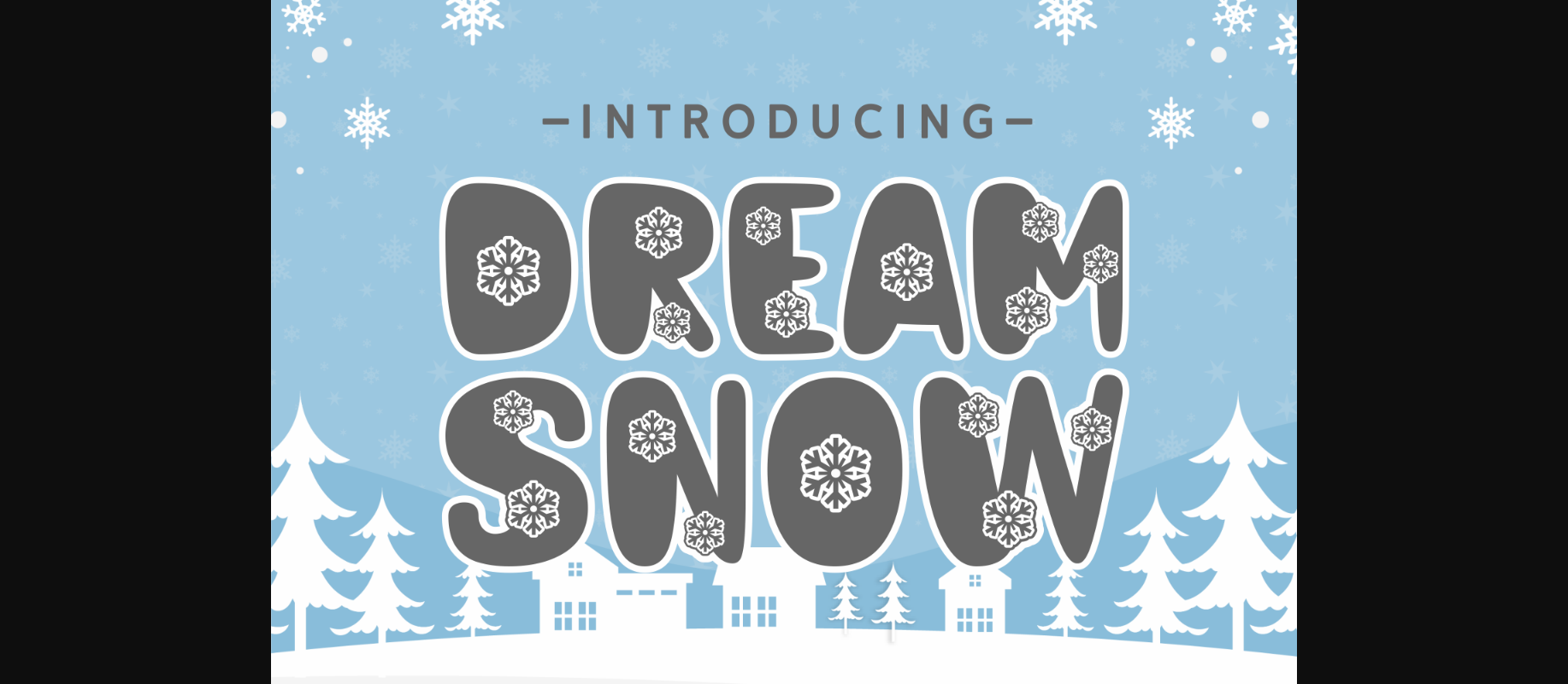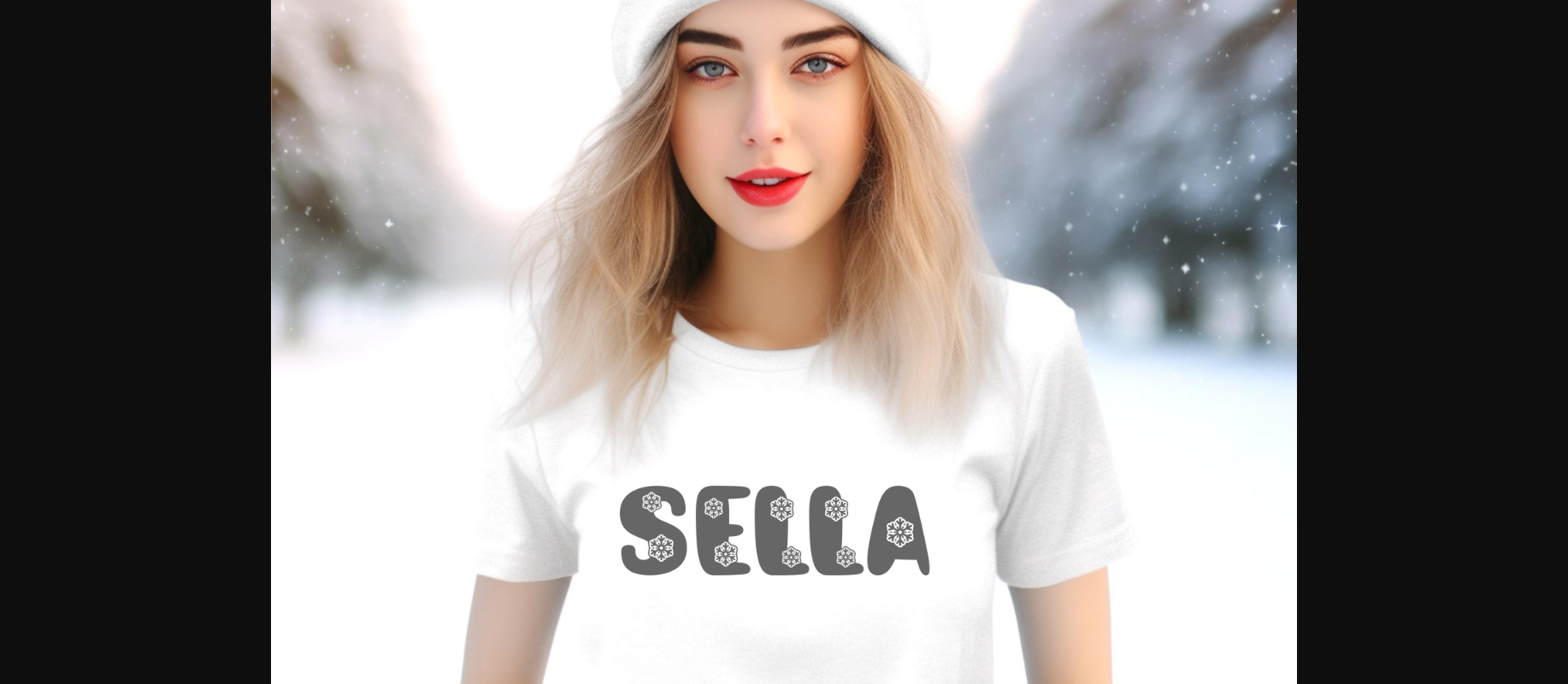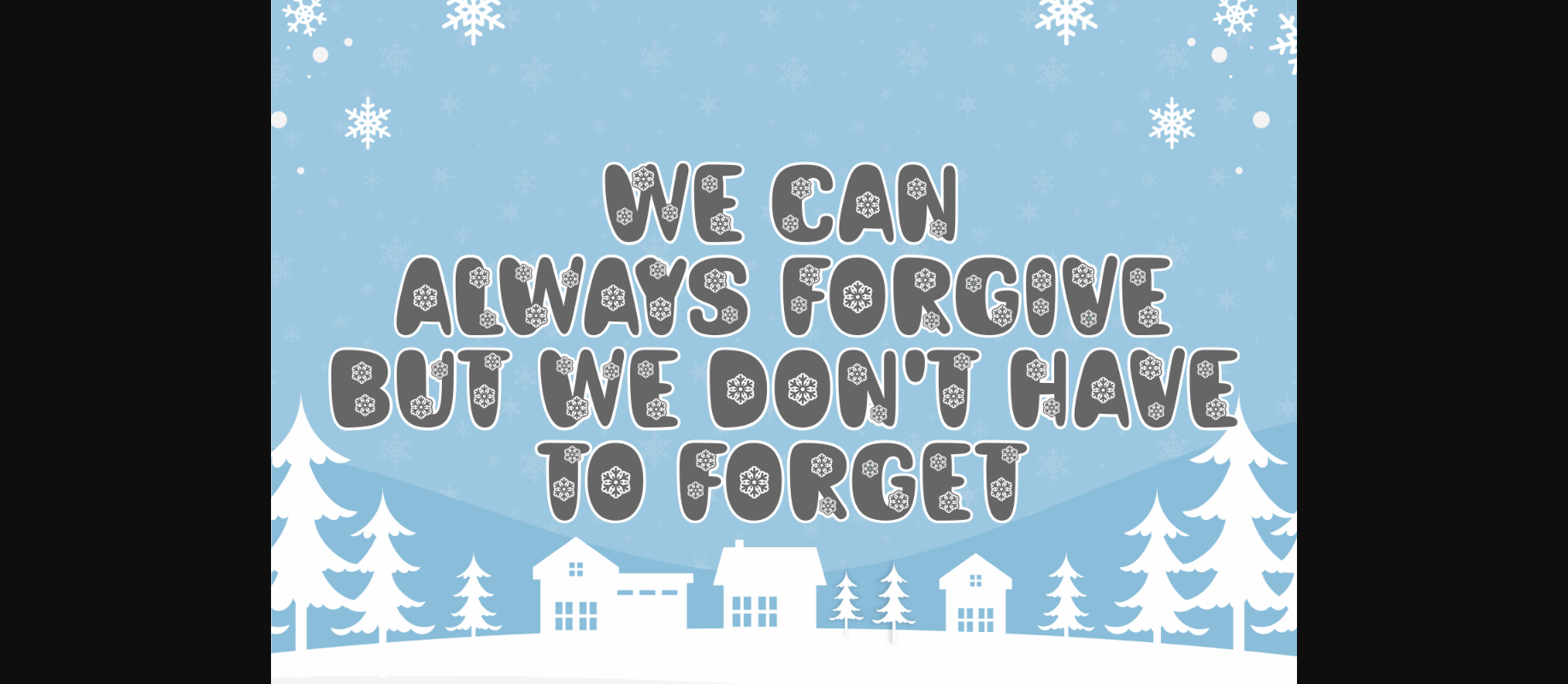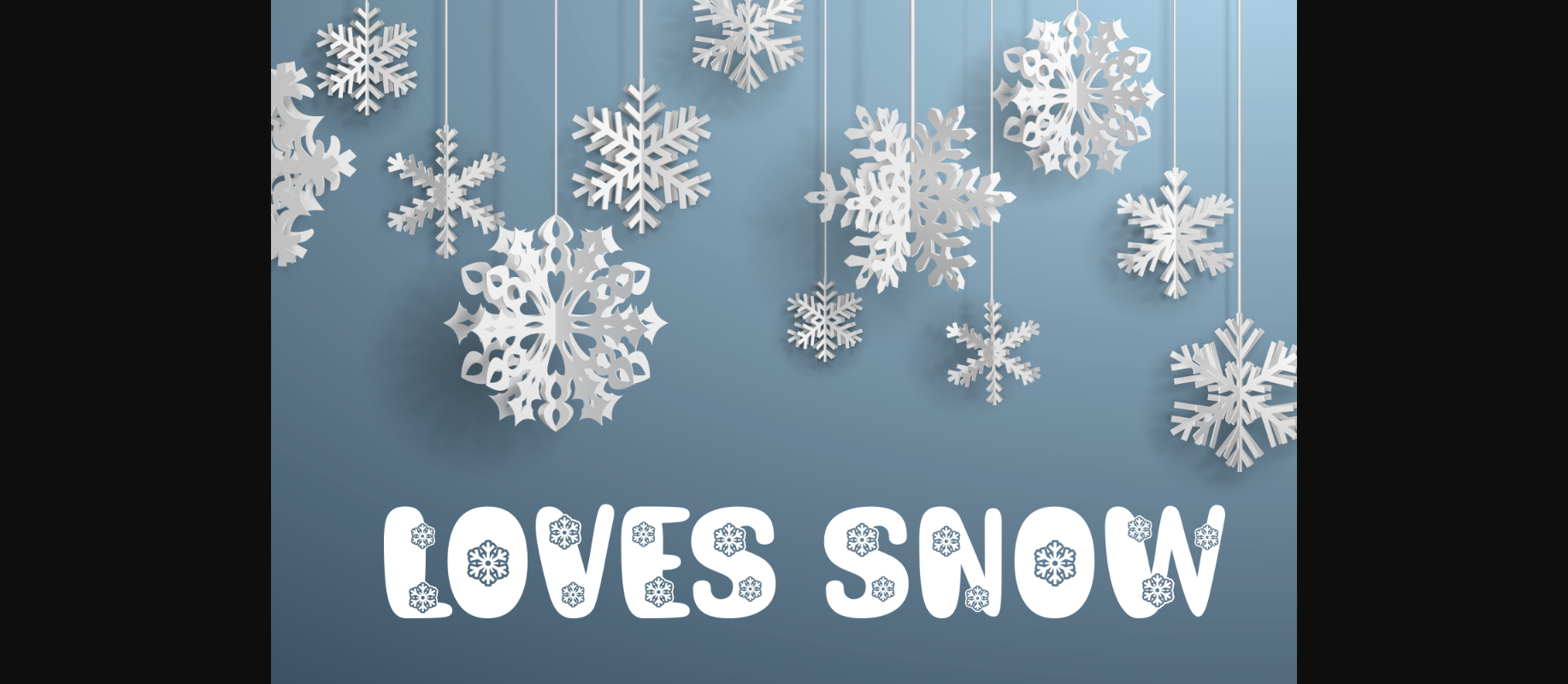
About Dream Snow Font
Dream Snow is a delightful decorative font adorned with adorable snowflakes on each letter. This font adds a touch of winter charm to your text, making it perfect for festive projects. With its playful design, Dream Snow brings a whimsical and cozy feel to any creative endeavor. Let your words sparkle with this cute and seasonal font choice.